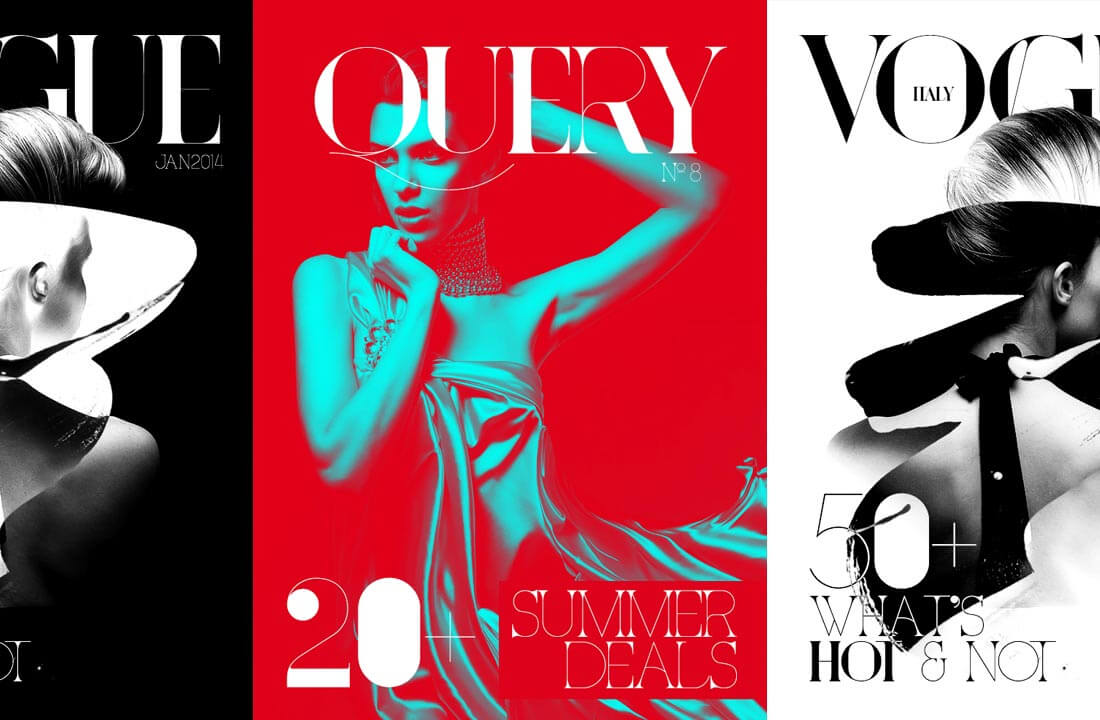
Incredible Fashion Magazine Fonts Ideas
Incredible Fashion Magazine Fonts Ideas. These two features make the typeface suitable for display and copy. Click to find the best 1,245 free fonts in the magazine style.
Top fashion fonts to crush 2022. Fashion magazine fonts inspirational designs, illustrations, and graphic elements from the world’s best designers. Enterprise solutions creative matters what’s.
Every font is free to download! Fashion magazine fonts inspirational designs, illustrations, and graphic elements from the world’s best designers. These two features make the typeface suitable for display and copy.
There Are 28 Distinct Fonts, Including 7 Different Weights, Ranging From Thin To.
Every font is free to download! Fashion magazines, aimed at both men and women, use typefaces that are elegant, stylish and cool. Click to find the best 1,245 free fonts in the magazine style.
Awaken is a soft serif typeface featuring beautiful ligatures and alternates. The best fonts for magazine designs (& famous magazine fonts!) start learning adobe photoshop adobe illustrator affinity designer affinity photo affinity publisher adobe. Enterprise solutions creative matters what’s.
Avengeline is a beautiful font that uses script calligraphy to give a classy, elegant, and modern look to any fashion project. These fonts are perfect for designing fashion magazines, social media posts, and fashion blog images. Latinotype created isidora sans, a sans serif font collection that contains geometric, clean typefaces.
This font is a great choice for posters, very big titles, book designs. Top fashion fonts to crush 2022. The new york magazine font cover.